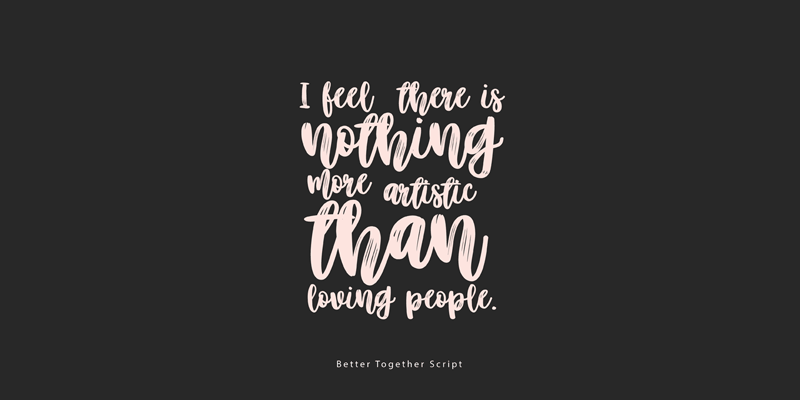
This is the demo version which was made for you to try out the font in your projects. This means you can NOT use it for personal or commercial aims. --- DOWNLOAD FULL VERSION FOR PERSONAL AND COMMERCIAL USE: http://myfonts.us/yzKM2J or https://crmrkt.com/xxaOG0 --- Better Together Script is one of 4 fonts of Better Together Family. It's a charismatic script, which includes some double-lettered ligatures and alternates for several letters to make your texts look more authentic. Full version of Better Together Script includes cyrillic and international characters that support most European languages. Hope you'll like it! |